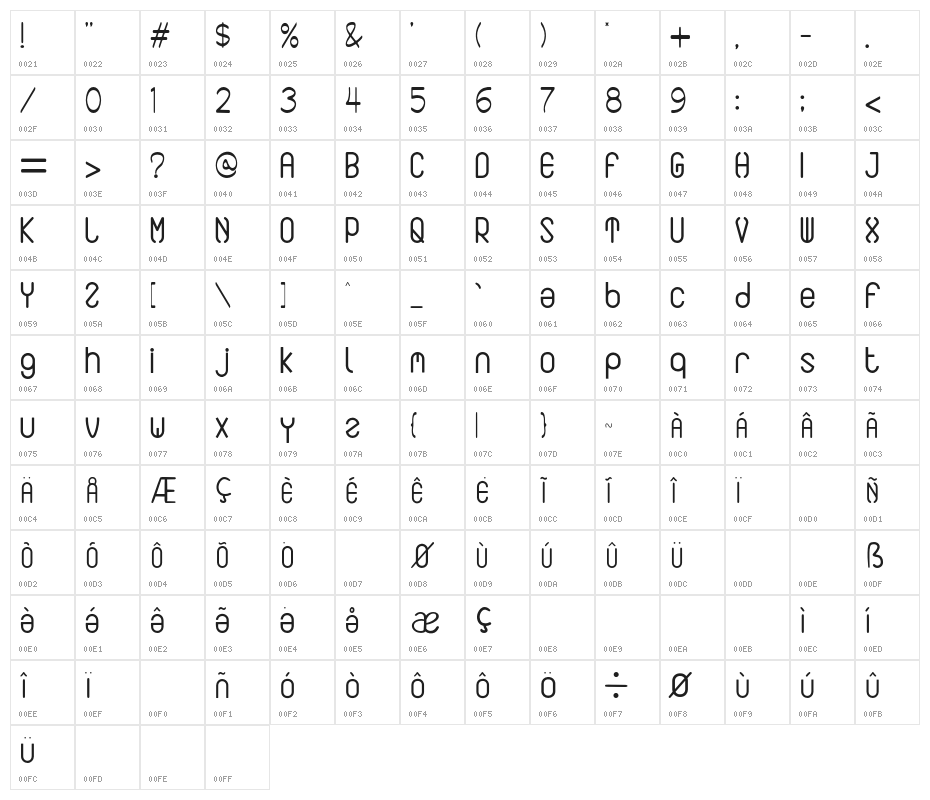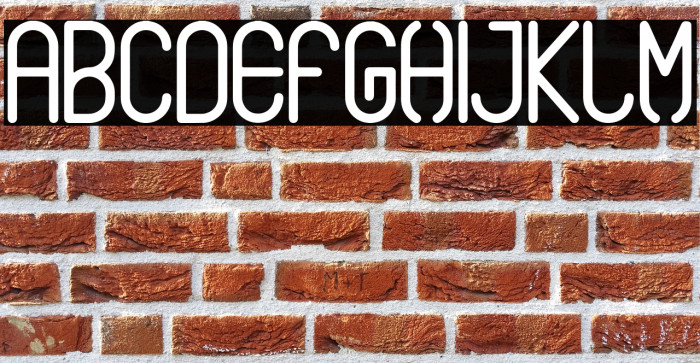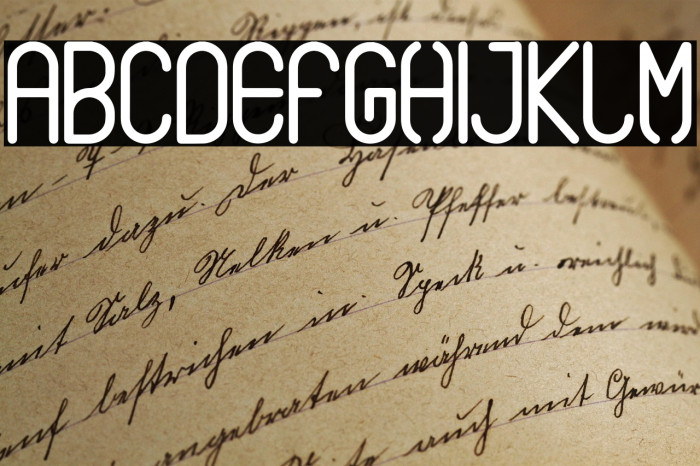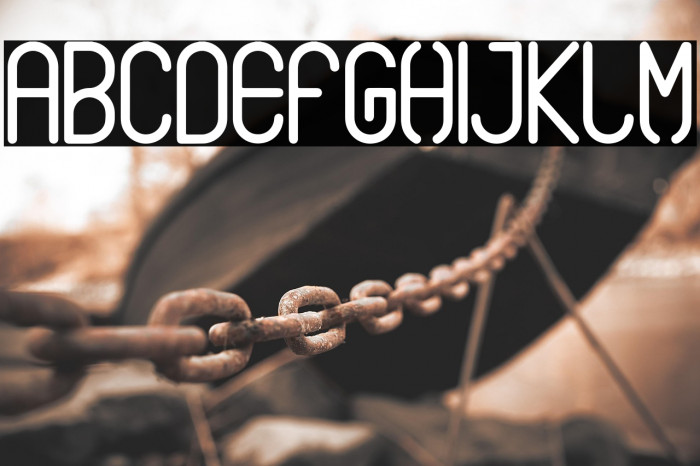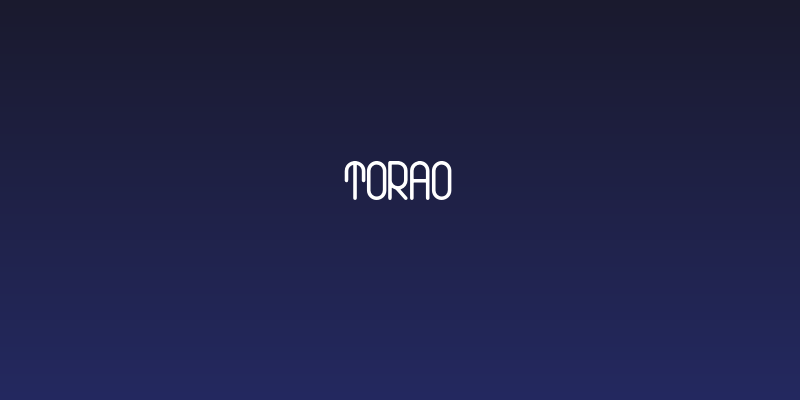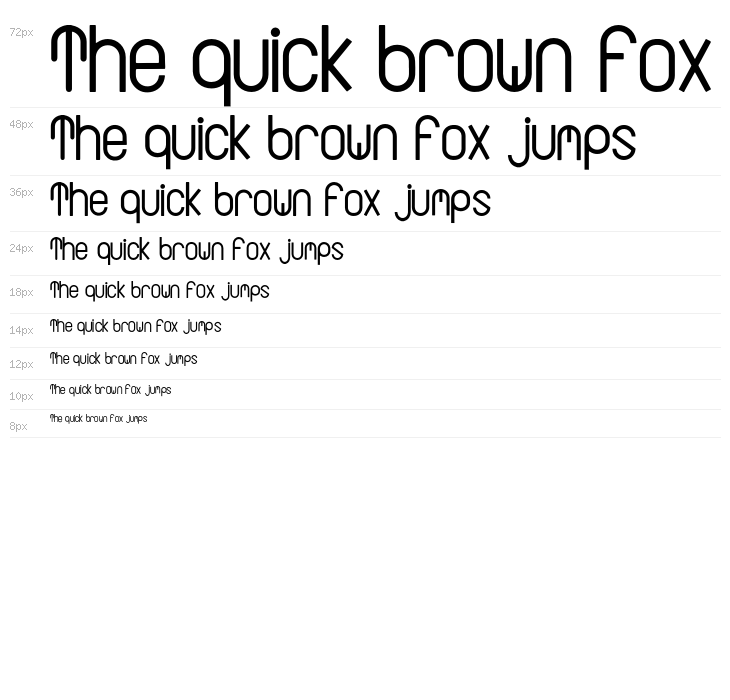
Torao Font
Torao Description
This font features a modern and unique design with rounded edges and a geometric structure. The characters are crafted with a consistent stroke width, giving it a clean and contemporary appearance. The uppercase letters have a distinctive style with some characters featuring open counters, adding to its modern aesthetic. The lowercase letters maintain a similar geometric form, ensuring readability while retaining a stylish flair. Numbers are straightforward and align well with the overall design, making them suitable for various applications. Special characters are included, maintaining the same design principles, which ensures a cohesive look across all text elements.
| Use Case | Headlines, Logos, Branding |
| Proposed Projects | Ideal for branding, advertising, and modern web design projects. |